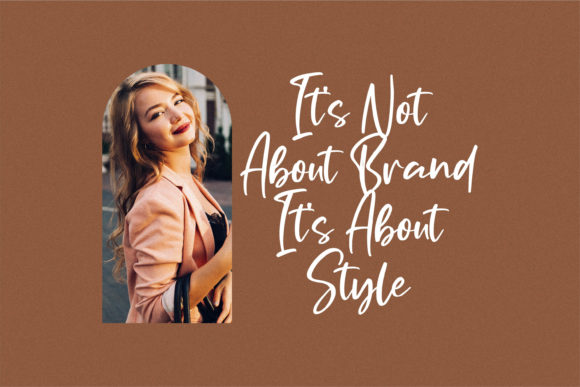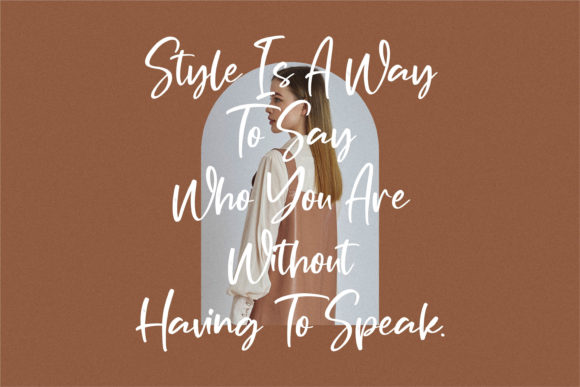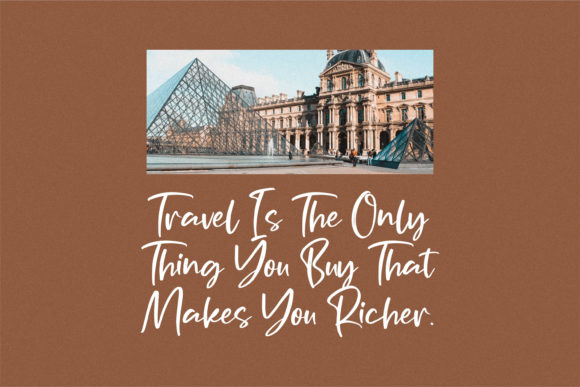
Introduction to Portofolio Brilliant Font
Have you ever stared at a blank page, struggling to find the perfect font to bring your creative project to life? You know, that moment when the words just aren’t flowing, and all you need is a gentle nudge to get your design juices going? That’s exactly what I experienced when I stumbled upon the Portofolio Brilliant Font.
This lovely and delicate script font is more than just a pretty face – it’s a game-changer for designers who crave a beautiful and refreshing look for their designs. With its elegant and classy vibe, the Portofolio Brilliant Font is the perfect design resource for anyone looking to elevate their creative project.
Not only does this font exude sophistication, but it’s also incredibly versatile, making it perfect for a wide range of design applications, from wedding invitations to marketing materials. And the best part? It’s available for free download, complete with a transparent background, allowing you to create high-quality designs with ease.
Key Features of Portofolio Brilliant Font
- Unique, modern font with a transparent background, perfect for showcasing your work.
- Designed to be versatile and adaptable, the Portofolio Brilliant Font is perfect for a wide range of creative applications.
Honest Review: Portofolio Brilliant Font
I recently stumbled upon the Portofolio Brilliant Font while searching for a design resource for a creative project. As a designer, I’m always on the lookout for high-quality fonts that can elevate my work.
The Portofolio Brilliant Font is a beautiful, elegant font that works well for a variety of designs. ✨ It’s perfect for creating eye-catching headlines, and its transparent background makes it easy to layer over images or other design elements. I also appreciate that it’s available as a free download, which is a huge plus for designers on a budget.
Here are some of the key features that make the Portofolio Brilliant Font stand out:
- Elegant, sophisticated design
- Transparent background for easy layering
- High-quality font with crisp lines and clean typography
That being said, I do have a few limitations to note: ⚠️ The font only comes in a few weights, which may limit its versatility in certain designs. Additionally, the font may not be suitable for very small or very large text sizes, as it can become difficult to read.
Overall, I’m impressed with the Portofolio Brilliant Font and would highly recommend it to designers looking for a high-quality, elegant font for their creative projects.
How to Use Portofolio Brilliant Font
Portofolio Brilliant Font is a versatile and stylish font that can elevate your creative projects. With a transparent background and high quality design, this font is perfect for designers looking for a premium design resource.
Tips for Getting the Most Out of Portofolio Brilliant Font
Use Portofolio Brilliant Font for headings and titles to add a touch of elegance to your designs. Experiment with different font sizes and combinations to create a unique look.
Portofolio Brilliant Font is perfect for creative projects, including:
- Business cards and resumes
- Marketing materials and brochures
- Website headers and footers
- Presentations and reports